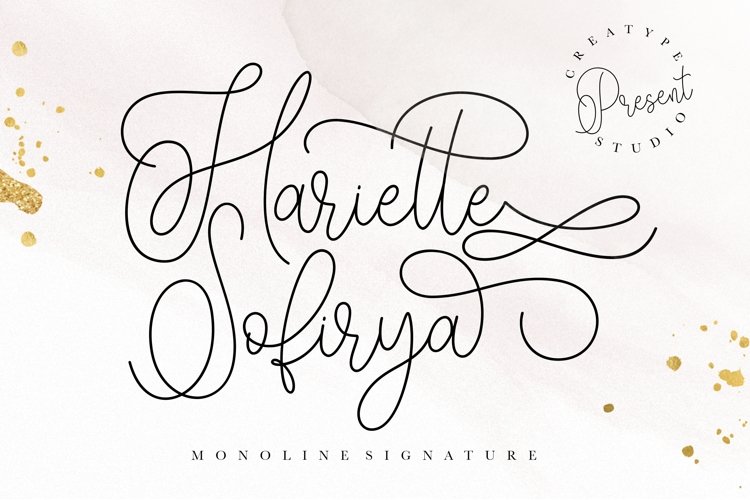
Hariette Sofirya a monoline signature font with natural line movement make this font looks classy, elegant and sophisticated.
Hariette Sofirya is perfect for branding projects, logo, wedding designs, social media posts, advertisements, product packaging, product designs, label, photography, watermark, invitation, stationery and any projects that need handwriting taste.